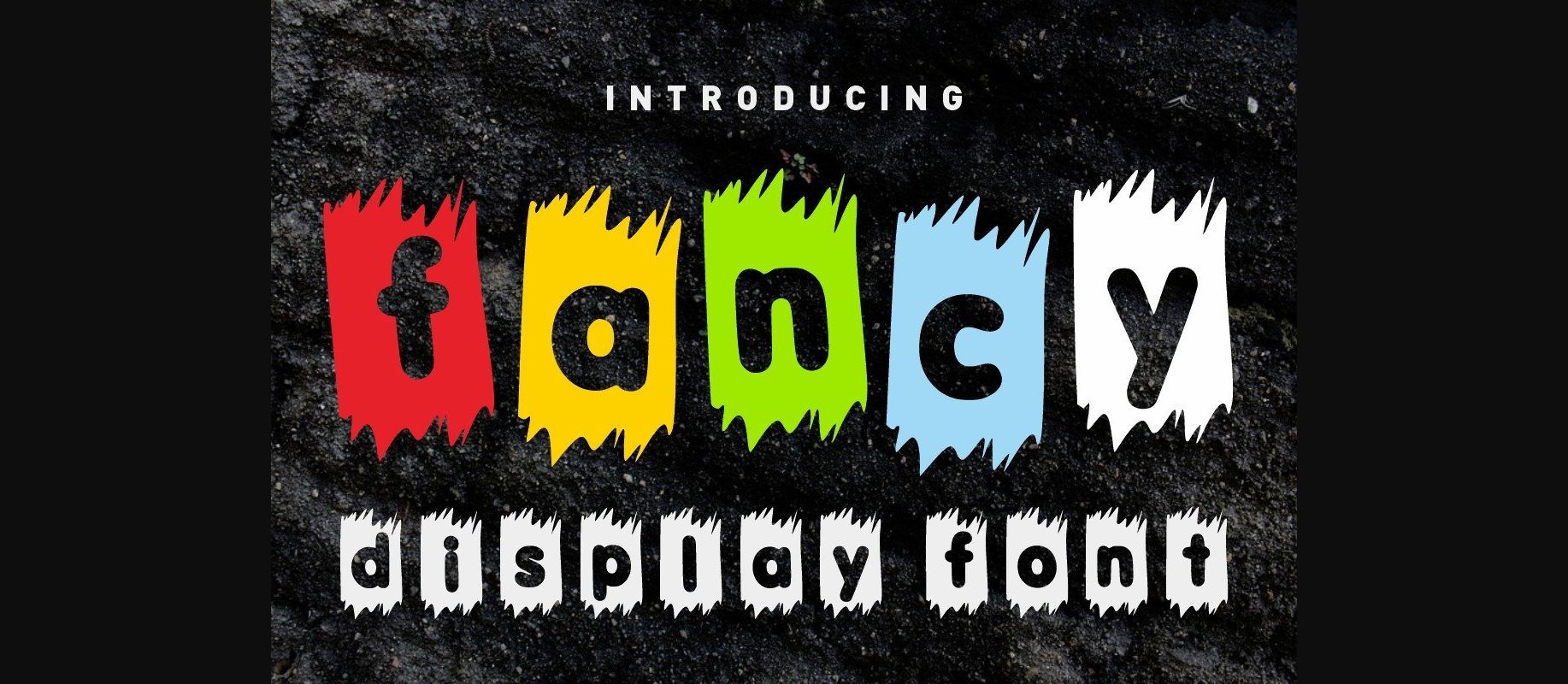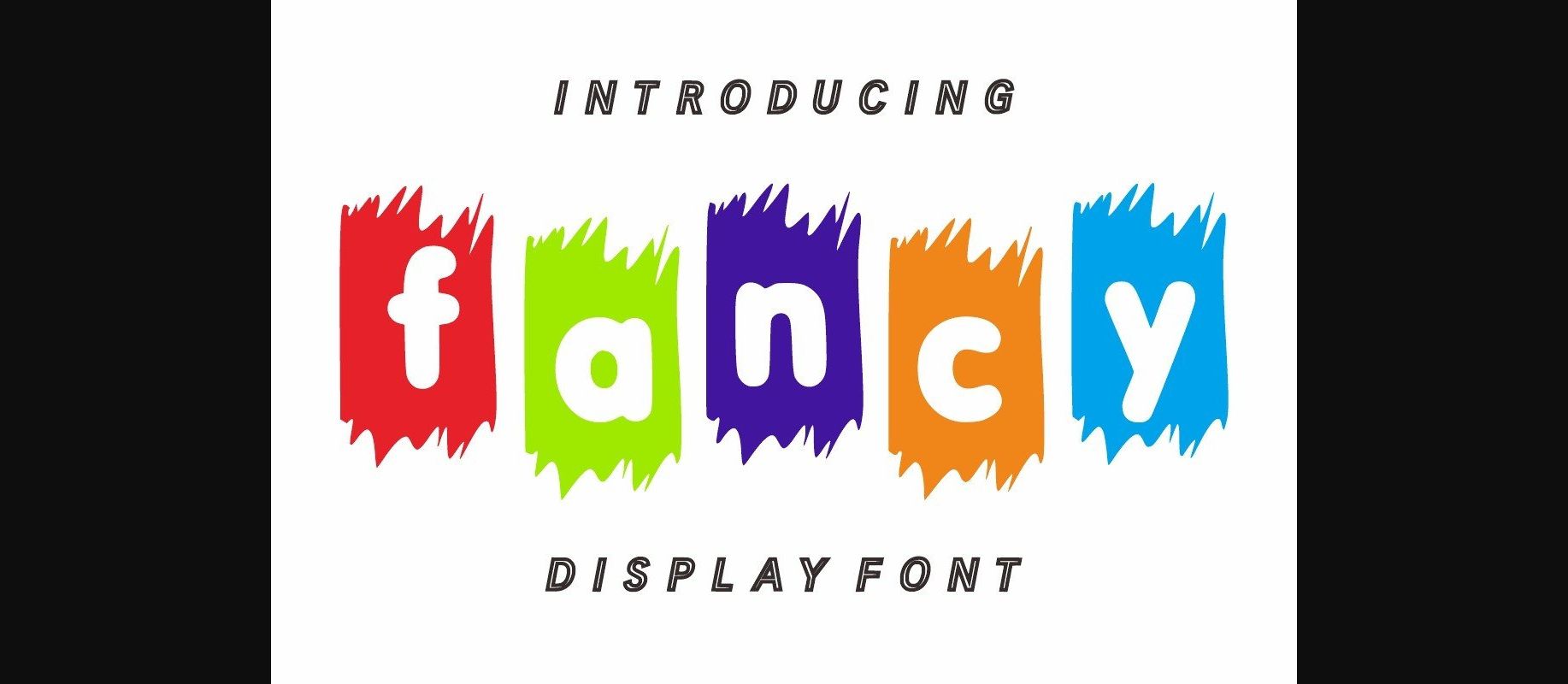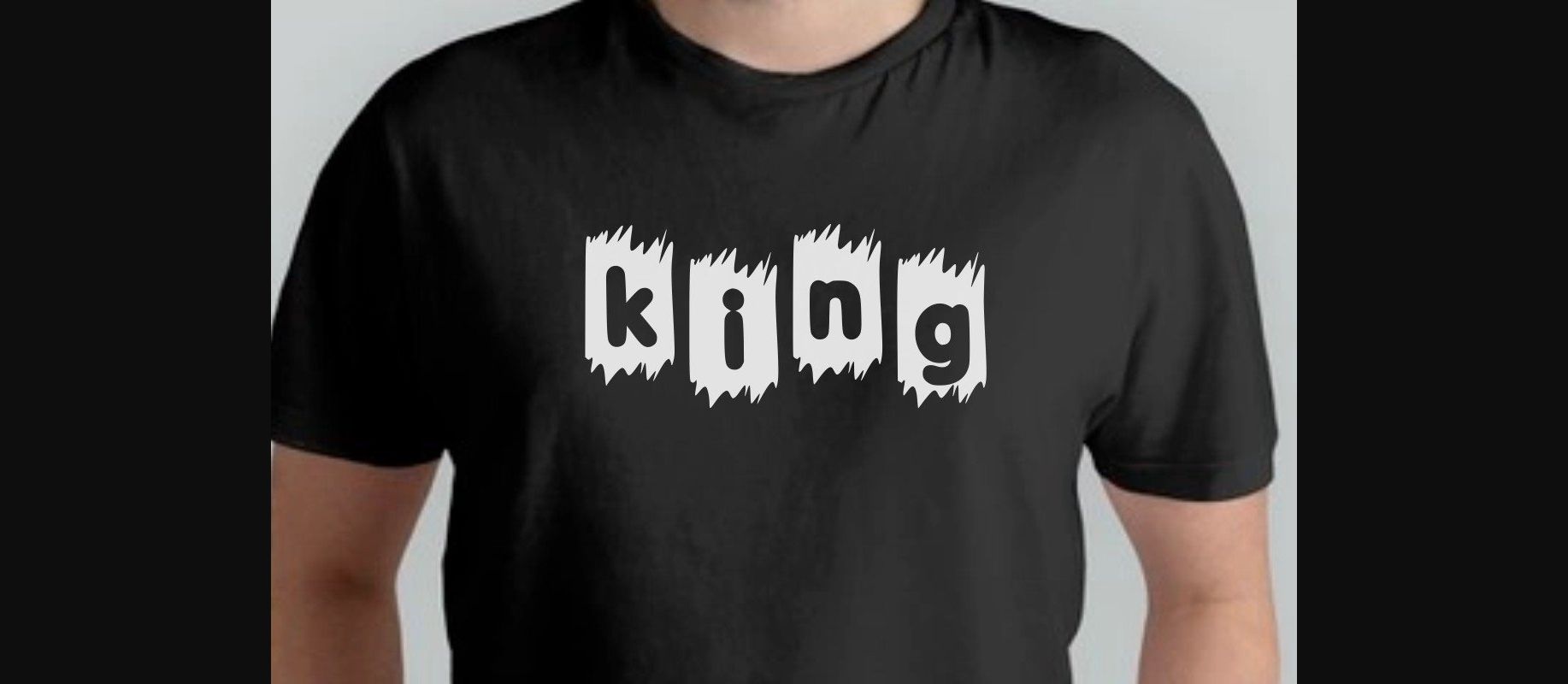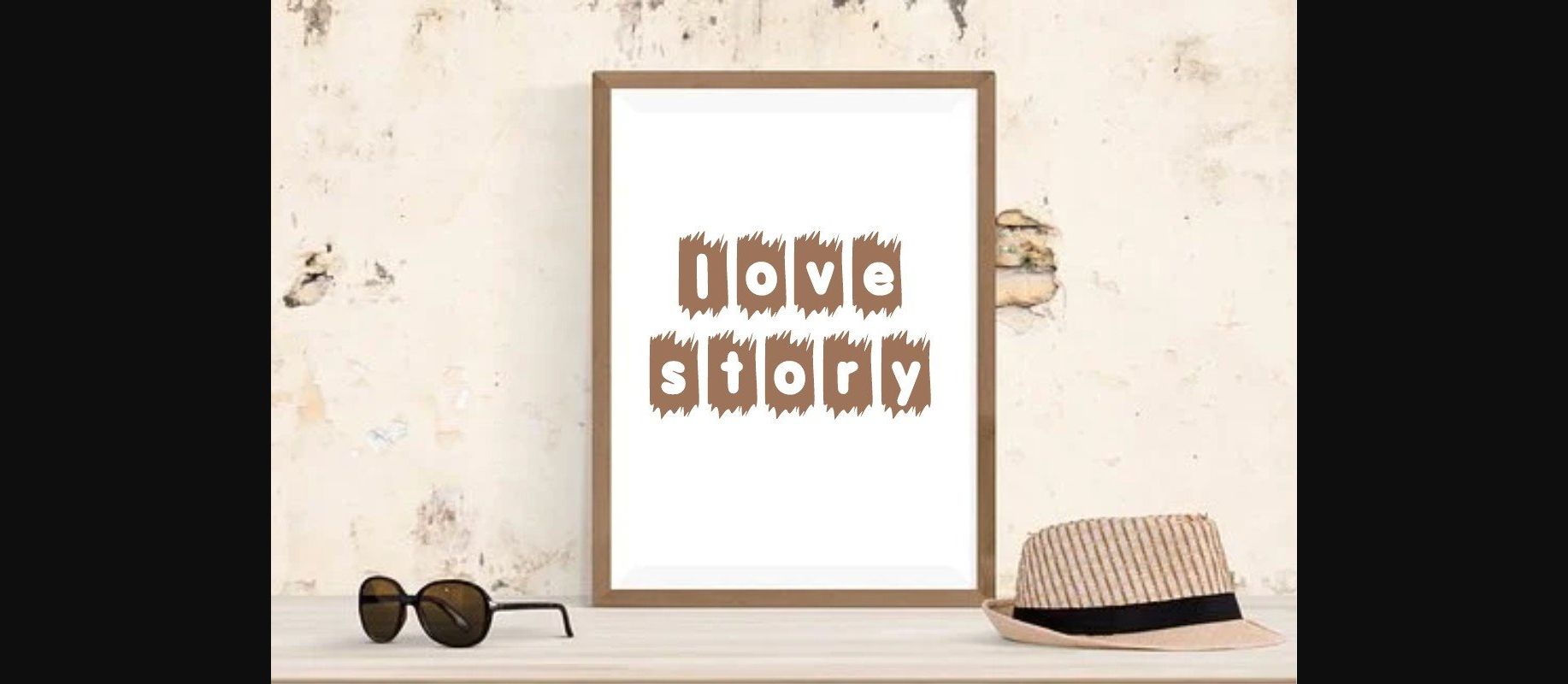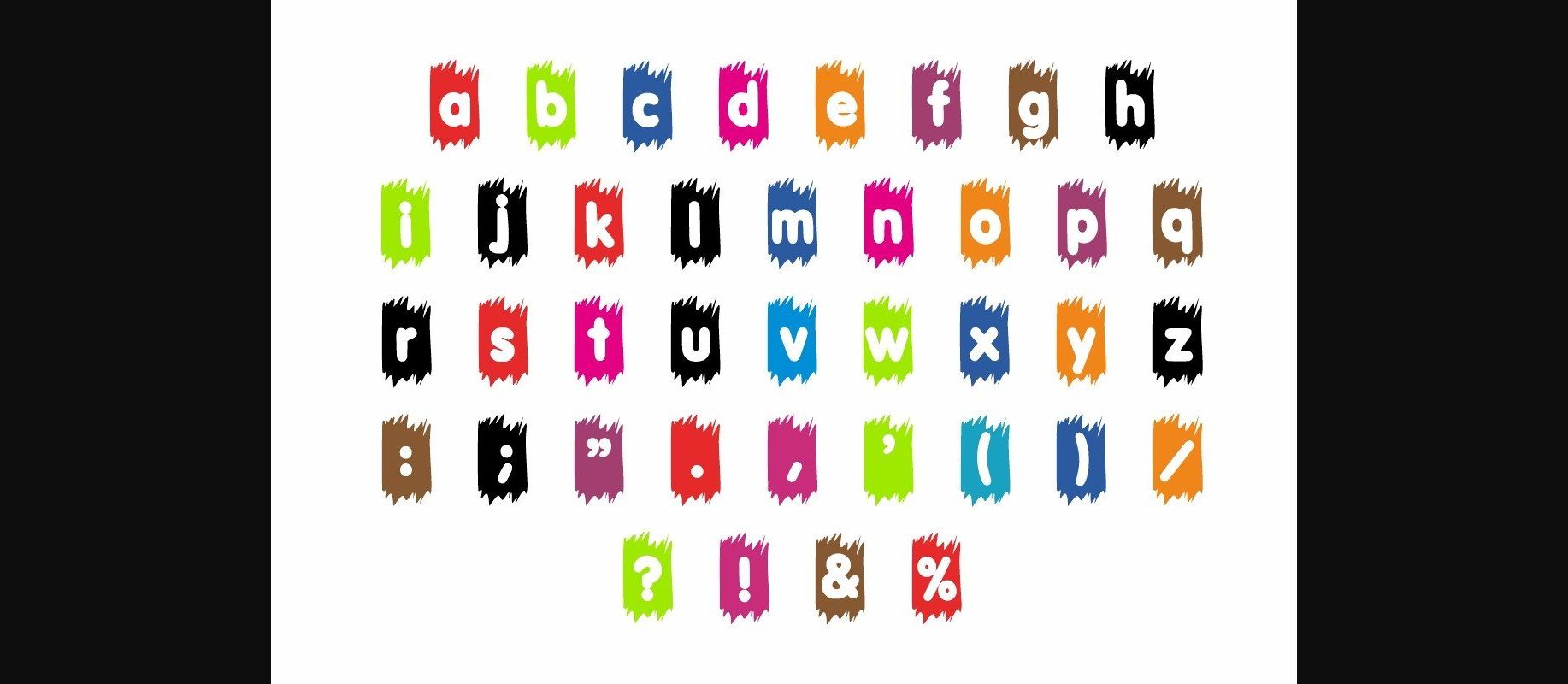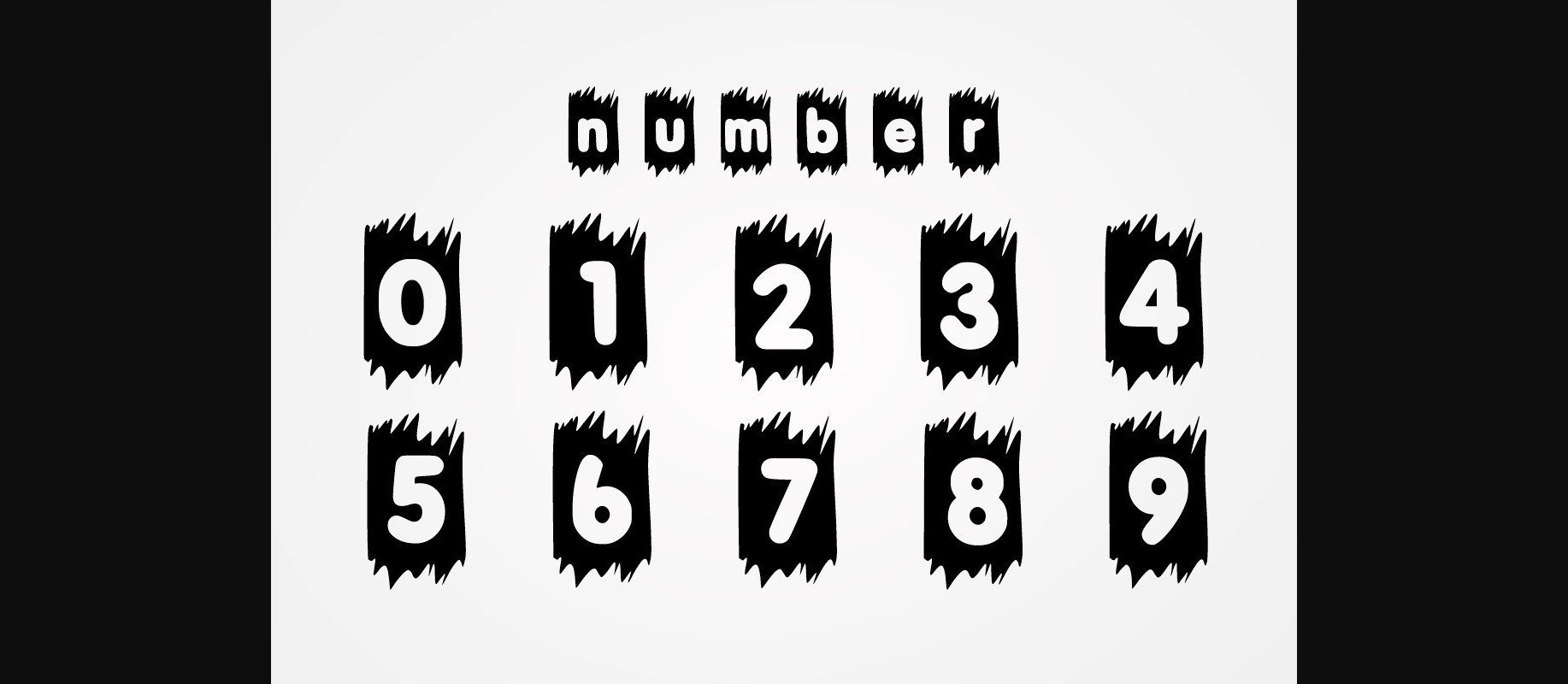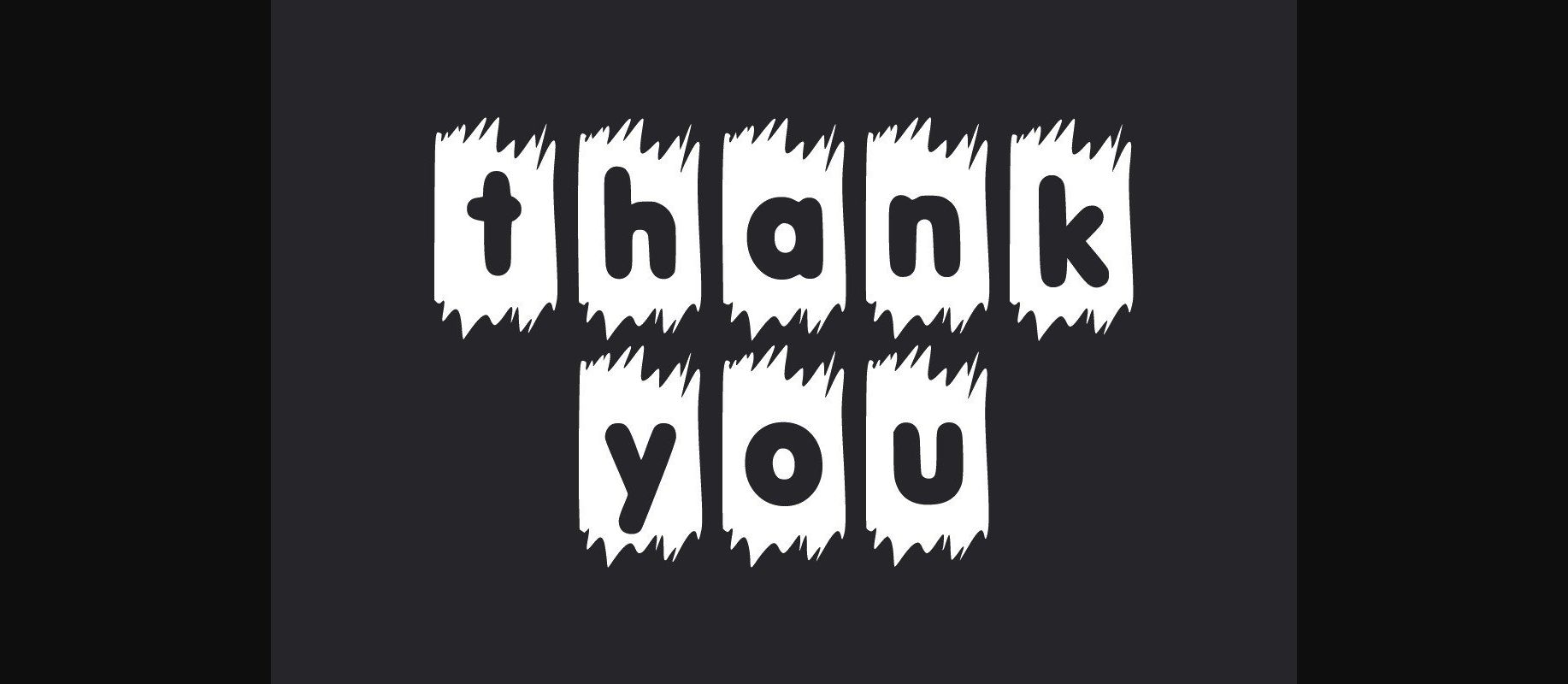
HomeDecorative FontsFancy Font Decorative Fonts Fancy Font FacebookXPinterestWhatsApp 1 of 9 ... Fancy Font Poster 2... Fancy Font Poster 3... Fancy Font Poster 4... Fancy Font Poster 5... Fancy Font Poster 6... Fancy Font Poster 7... Fancy Font Poster 8... Fancy Font Poster 9... About Fancy Font fancy is a cool and fun decorative font. Add it to each of your promotions, price tags, party invitations, gatherings, or pretty much any design that requires a touch of youth and joy. DOWNLOAD NOW People also explored FormPattern Color Two Silver Bella Canvas 3001 T Shirt Mockup Like Magic Font MilkTea YWFT Hugo Angela Dream Font Aghnisty Font Chief Cart Font Harlesy Font 311 0 TagsFancyFancy Font Previous articleDinosaur FontNext articleZombies Font LEAVE A REPLY Cancel reply Comment: Please enter your comment! Name:* Please enter your name here Email:* You have entered an incorrect email address! Please enter your email address here Website: Save my name, email, and website in this browser for the next time I comment. Personal Use Free Velasco Personal Use Free Read more about this font Bonhomie Personal Use Free Read more about this font New Normal Personal Use Free Read more about this font Boldist Personal Use Free Read more about this font BLOG How to Cut Any Font on Cricut: Convert a Font to SVG (Free) Turn any font into a clean SVG so it cuts crisp on Cricut - a quick 3-step workflow using a free font-to-SVG tool. Best Fonts for T-Shirt Design – Top 2025 Picks Where to Buy American Fonts Online in 2024 Exploring Font Trends